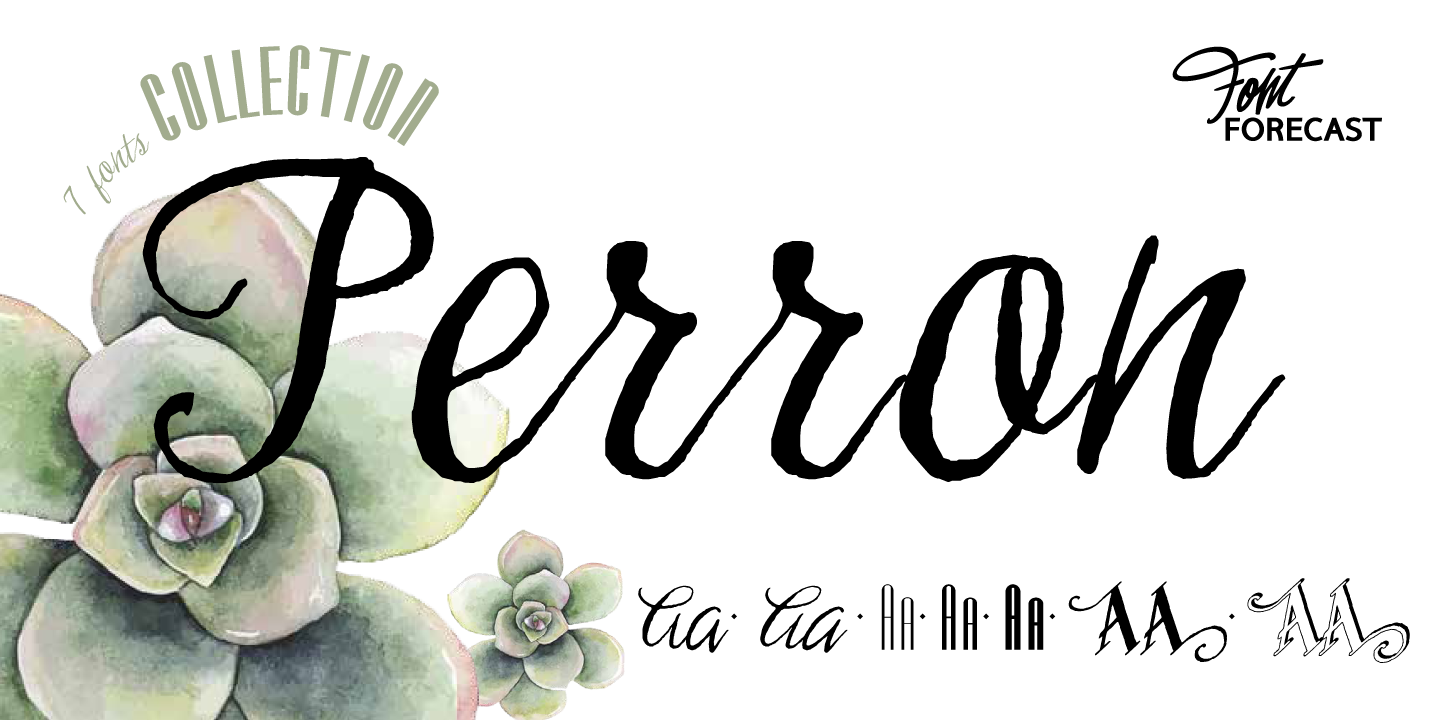
Perron Font is perfect for railway station signage, vintage train travel branding, industrial transportation logos, heritage railway museums, urban transit system materials, and nostalgic locomotive-themed designs.
Perron Font is exciting because it captures the romantic nostalgia and industrial heritage of railway travel, delivering a distinguished typeface that embodies the golden age of train transportation and the timeless appeal of rail journeys.
The Perron Font family includes locomotive variations: Perron Light, Perron Regular, Perron Bold, station alternates, and decorative elements inspired by classic railway typography and vintage train station architecture.
Journey through typography with Perron Font Free Download, a nostalgically crafted typeface that brings railway heritage and locomotive elegance to your most adventurous transportation design projects. This distinguished font excels in creating memorable branding for heritage railways, train tour operators, transportation museums, and vintage travel companies that celebrate the romance and adventure of rail travel across scenic landscapes. The carefully engineered letterforms feature industrial proportions and railway-inspired details reminiscent of classic station signage and locomotive nameplates that communicate reliability, adventure, and timeless travel elegance while ensuring excellent readability across all transportation applications. Perfect for train timetables, railway heritage publications, vintage travel posters, and transportation industry materials that need to evoke feelings of wanderlust and nostalgic journey experiences, this font connects with travelers who appreciate the romance of slow travel and scenic rail adventures. Each character moves with locomotive precision, making every railway message feel like an invitation to embark on unforgettable journeys through beautiful countryside aboard classic trains. Perron Font transforms transportation communications into inspiring travel invitations that celebrate the enduring magic of railway adventures while honoring the industrial heritage that connected nations and cultures.